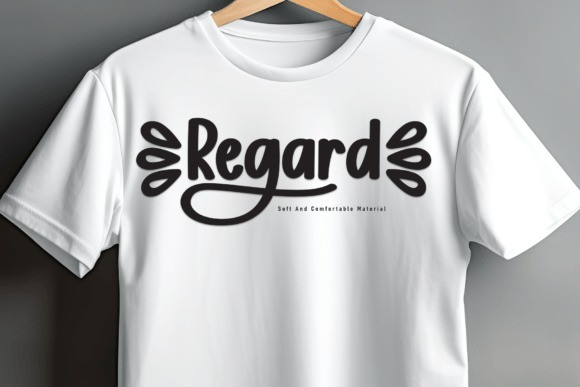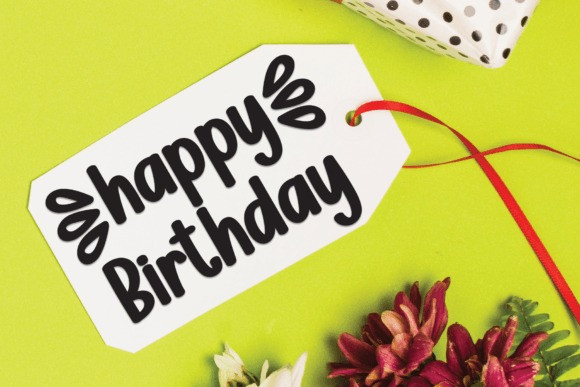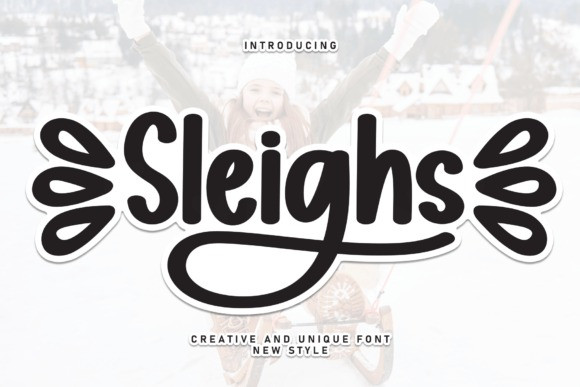
Sleighs Font
Sleighs Font is a sweet and friendly handwritten font. Its natural and unique style makes it incredibly fitting to a large pool of designs. The only limit is your imagination!